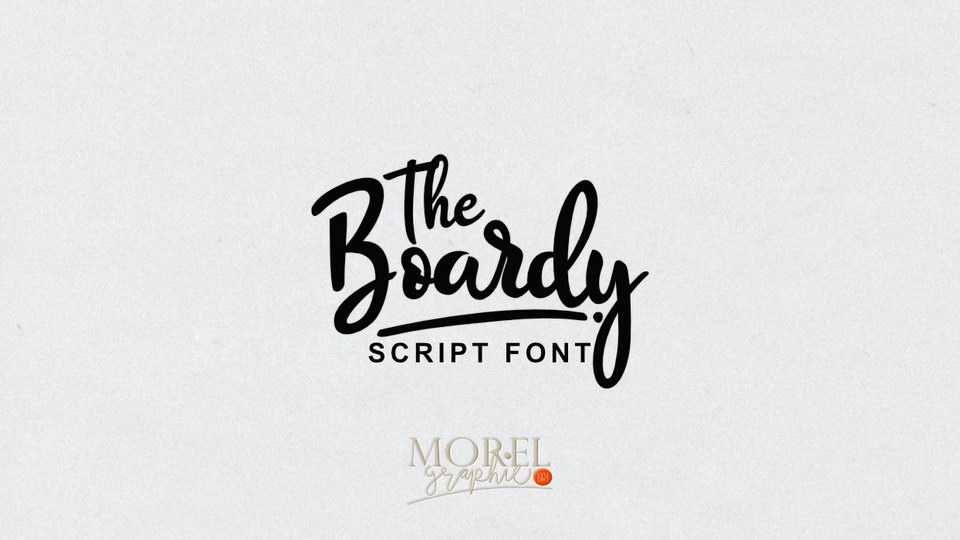
Download The Boardy font, a soft flowing handwritten script, described by an elegant touch, perfect for your favorite projects. The Boardy with its incredibly distinct and timeless style is perfect to create spectacular designs!